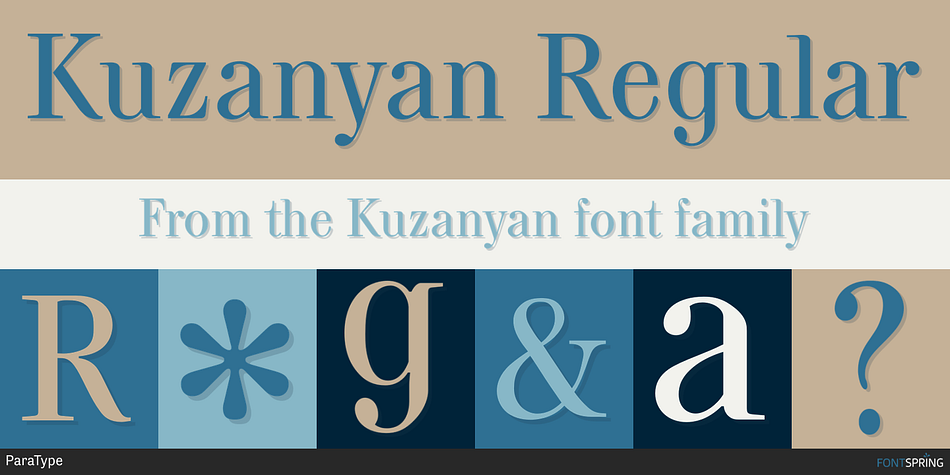
Kuzanyan Regular
Designed by Lyubov Kuznetsova, Kuzanyan is a serif font family. This typeface has four styles and was published by ParaType.
The hand composition typeface was created at Polygraphmash type design bureau in 1959 by a well-known Soviet book and type designer Pavel Kuzanyan (1901-1992). It was reproduced in the 1960s for slugcasting and machine display composition. Sharp contrast, strong weight, slightly condensed Modern Serif with calligraphic elements. The typeface is useful in text and display composition, in scientific, fiction and art books. The revised and completed digital version was designed at ParaType in 2002 by Lyubov Kuznetsova.